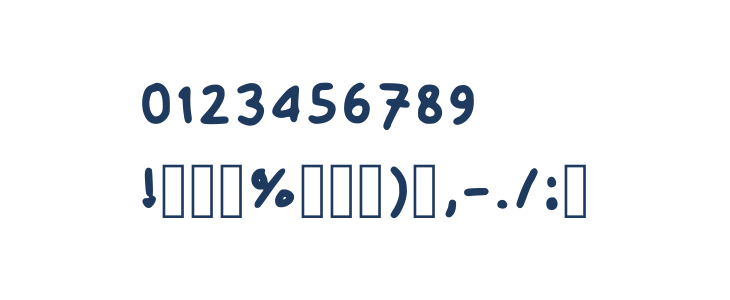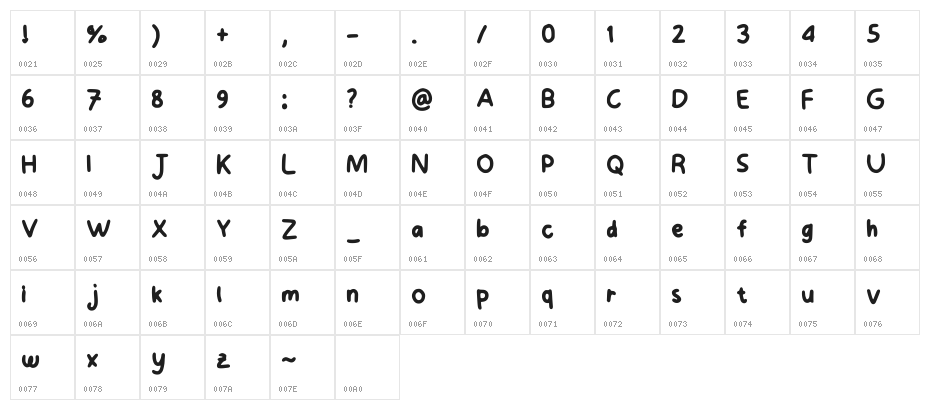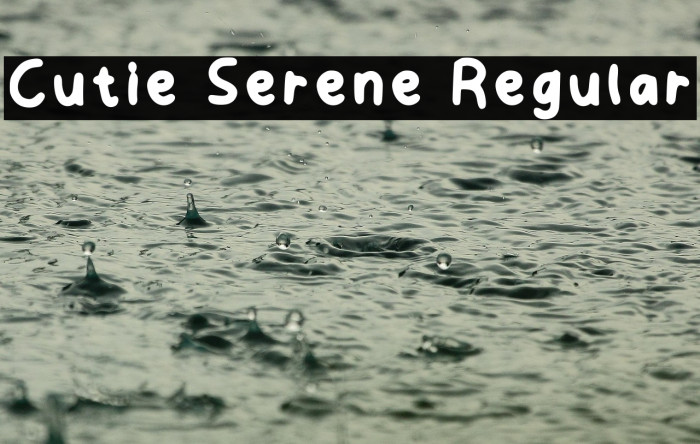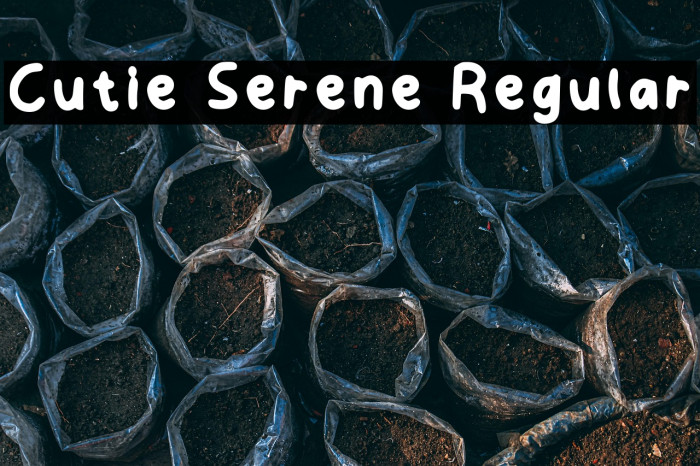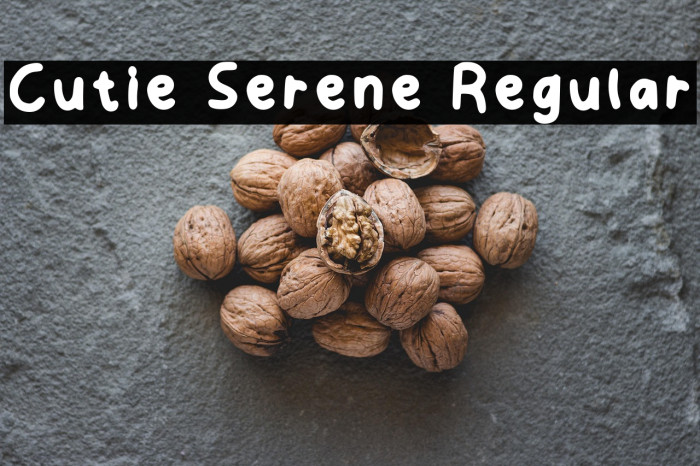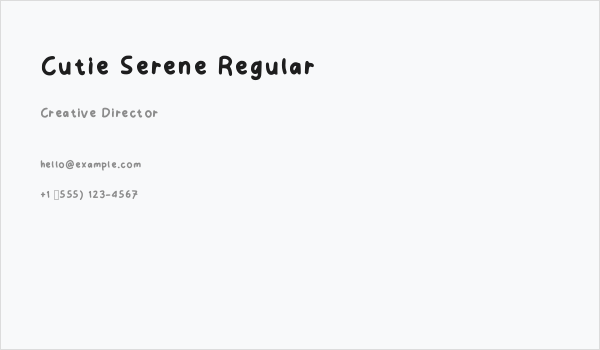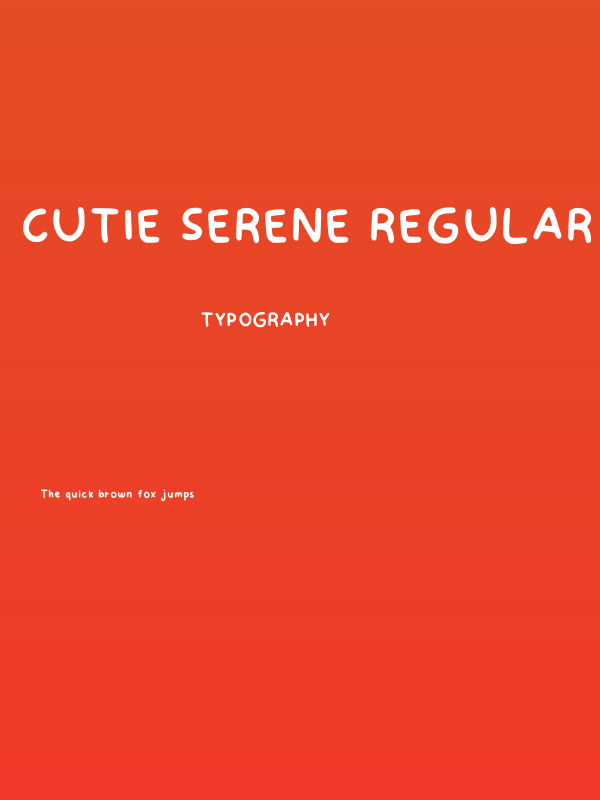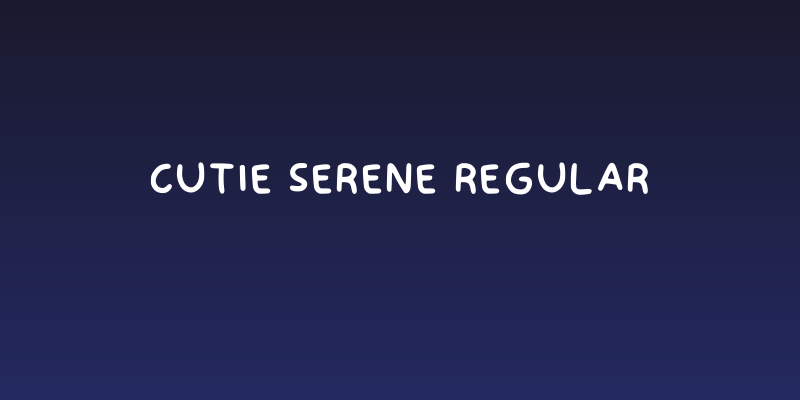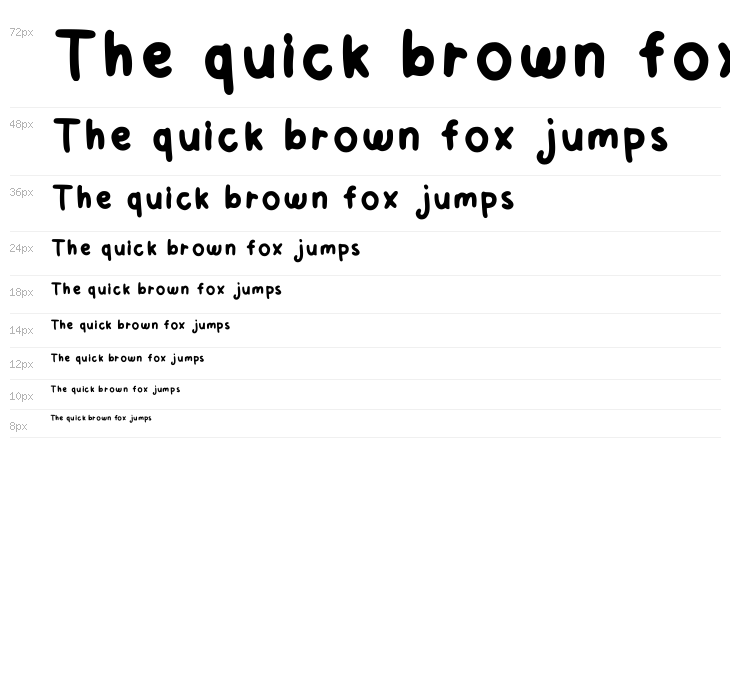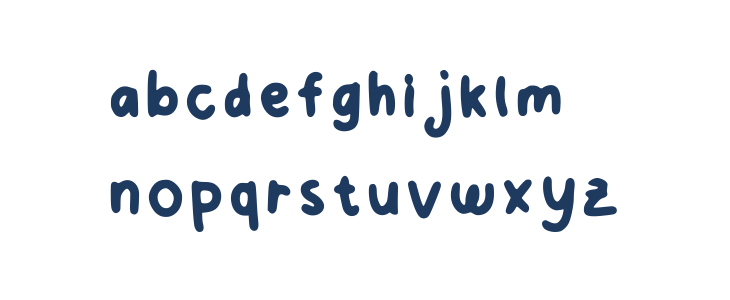
Cutie Serene Regular Font
Cutie Serene Regular Description
This playful and rounded font exudes a friendly and approachable vibe, characterized by its smooth curves and slightly irregular shapes. The letters are bold and have a hand-drawn quality, giving them a whimsical and informal appearance. The font maintains consistent stroke thickness throughout, contributing to its cohesive look. Its simplicity and charm make it suitable for projects that require a personal touch or a casual aesthetic. The numbers and special characters are designed to match the playful style of the alphabet, ensuring uniformity across all text elements.
Overall StyleCasual
Use CaseHeadlines, Logos, Informal Text
Proposed ProjectsIdeal for children's books, greeting cards, playful branding, and casual invitations.